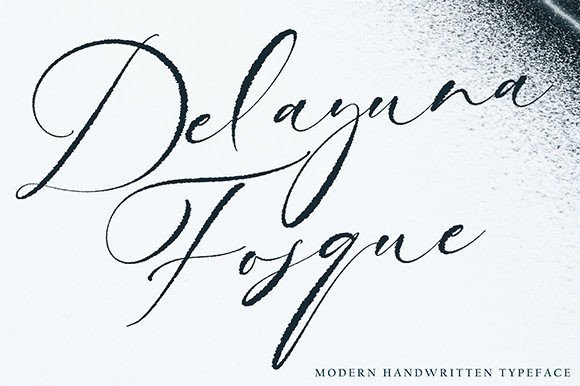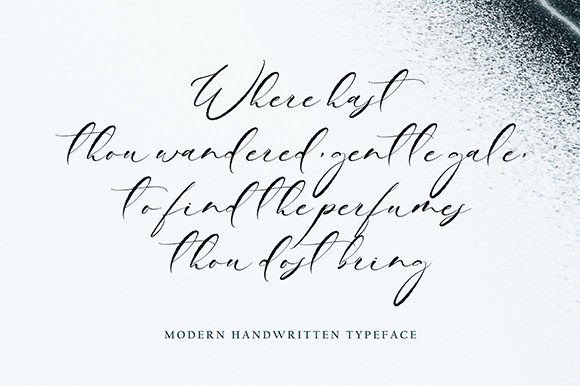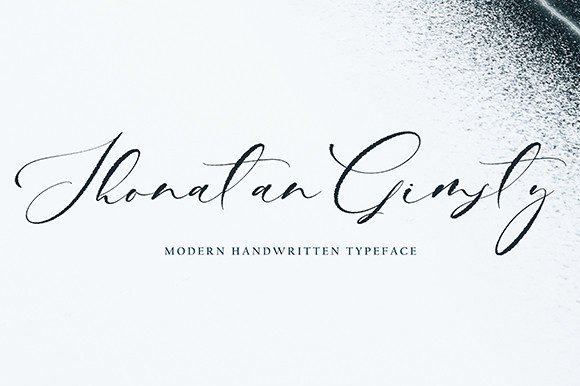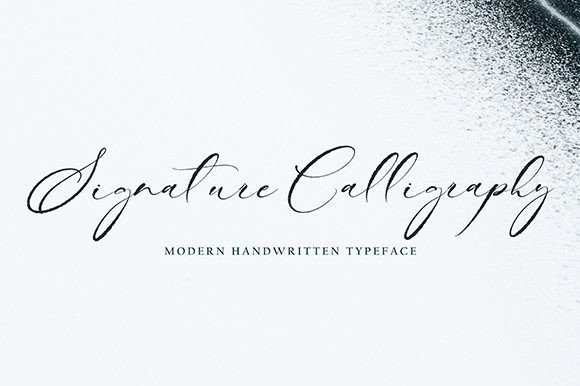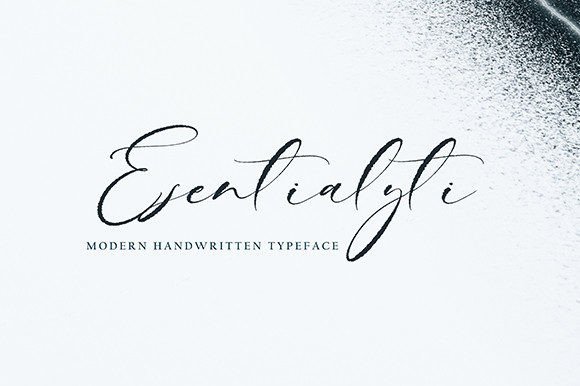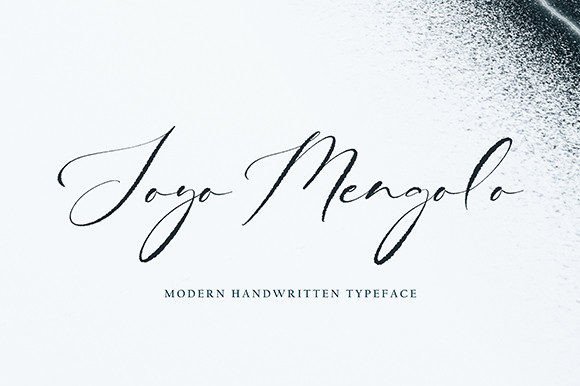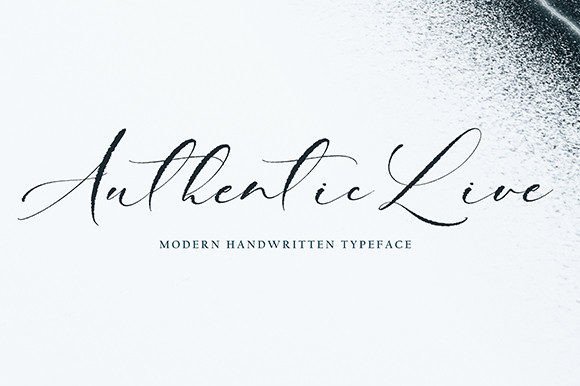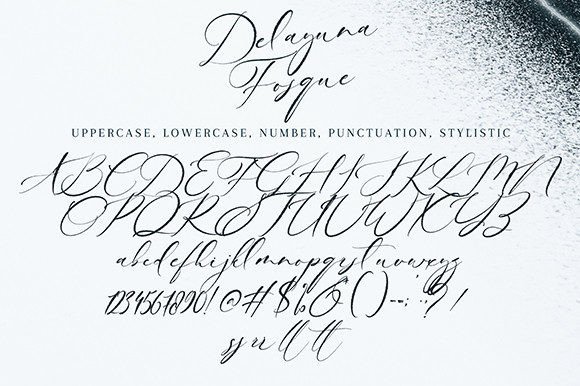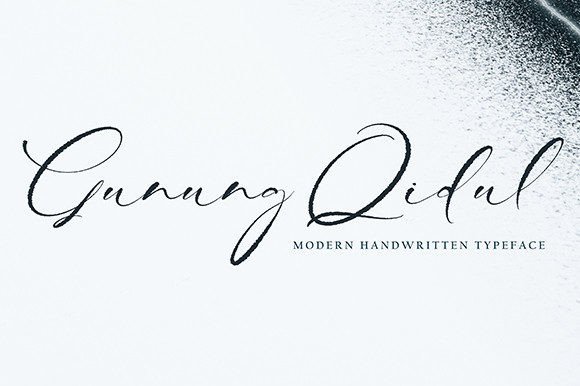
Delayuna Fosque Font
About Delayuna Fosque Font
Delayuna Fosque is an exquisite handwritten font that combines classic calligraphy with a modern twist. This stylish script is designed to make every project feel special. Whether you’re working on elegant wedding invitations, sophisticated branding, or eye-catching social media graphics, Delayuna Fosque is the perfect choice.
Classic Calligraphy with a Fresh Feel
Delayuna Fosque captures the timeless beauty of calligraphy but keeps it current. Its flowing letterforms are delicate yet strong, creating a graceful look that never feels outdated. Each character is carefully designed to balance elegance and readability, making it a versatile font for many design styles.
The font’s clean curves and refined details give your text a polished look without losing its natural, handwritten charm.
Delayuna Fosque works beautifully across a wide range of applications. Use it to add sophistication to:
• Wedding Invitations: Make your special day feel even more memorable.
• Branding: Create logos and identities that feel unique and refined.
• Greeting Cards: Add a personal, heartfelt touch to messages.
• Social Media Graphics: Stand out with elegant and stylish text overlays.
• Posters and Quotes: Highlight inspiring words with graceful script.
• Packaging: Elevate product labels and packaging with a premium look.
No matter where you use it, this font will help your design shine.
Tips for Stunning Typography
Make the most of Delayuna Fosque with these quick tips:
• Pair with Sans Serif Fonts: Balance its flowing style with clean, simple text.
• Use Large Sizes: Showcase the elegant curves in headlines and titles.
• Adjust Spacing: Fine-tune letter spacing for better legibility.
• Mix Alternates: Add swashes and ligatures to create visual interest.
These small adjustments will help you achieve a professional look with minimal effort.
A Timeless Choice for Elegant Design
Delayuna Fosque brings a sophisticated and modern feel to any project. It’s perfect for designers who want to blend tradition with fresh style. Whether you are crafting wedding stationery, building a luxury brand, or designing thoughtful gifts, this font is ready to help you make a lasting impression.
With Delayuna Fosque, your ideas will stand out and feel truly elevated.